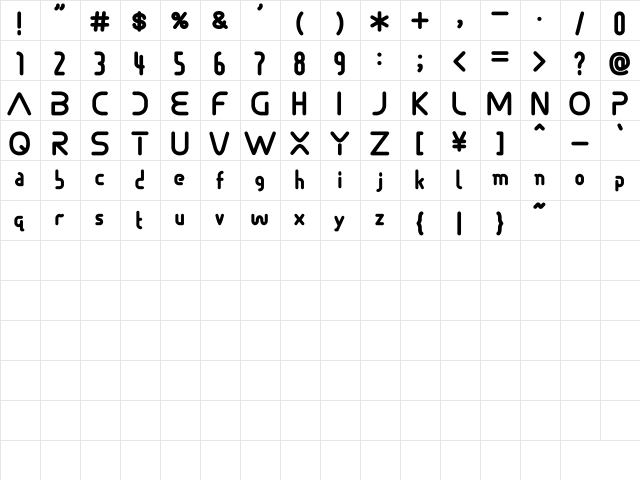
SonicDemonFont Regular Font Preview
SonicDemonFont Regular
SonicDemonFont Regular Font Details
Design Context for SonicDemonFont Typeface
SonicDemonFont is a composed and adaptable typeface that performs quietly and consistently across a wide range of design contexts.